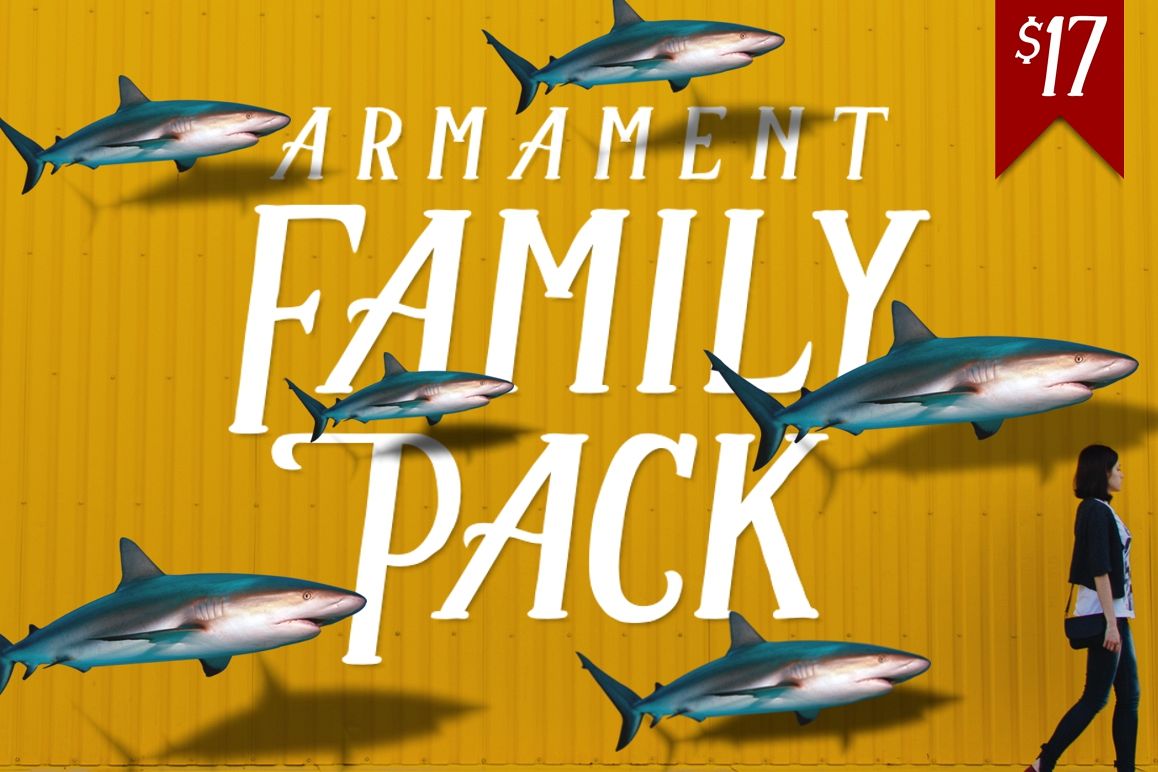
Armament Family
Armament Family, a special offer of our handwriting fonts: Armament Regular and Stencil.
Carefully crafted from the sketch. The narrow, (kinda) rough and jaggy lines gives you the vintage yet macho feel. This typeface is a great addition to fulfil your need for a quality vintage themed font. Packed with some OpenType Characters to let you play and explore more letter variations. Suits best for almost all vintage themed design, bombastic quotes writing, etc.